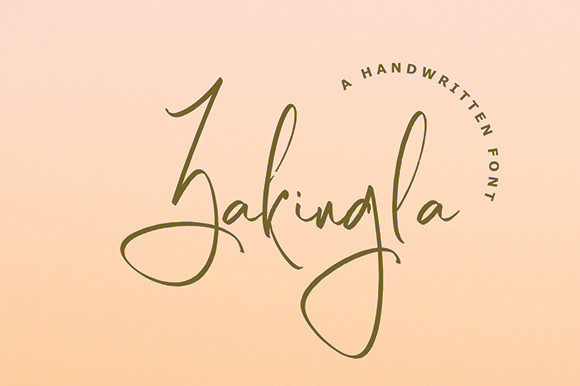
Introducing Zakingla Font: The Ultimate Romantic and Sweet Calligraphy Typeface
Are you looking for a font that can add a touch of luxury and romance to your design projects? Look no further than Zakingla Font! This beautiful calligraphy typeface is designed to make your designs stand out with its unique and elegant style. In this article, we’ll take a closer look at Zakingla Font and explore its features, benefits, and uses.
What is Zakingla Font?
Zakingla Font is a romantic and sweet calligraphy typeface that features characters that dance along the baseline. This unique design gives it a playful and elegant feel that’s perfect for a variety of design projects. The font is designed to add a luxury spark to any project, making it ideal for designers who want to create high-end designs.
Features of Zakingla Font
Zakingla Font has several features that make it a standout choice for designers. Some of its key features include:
- Romantic and Sweet Style: Zakingla Font has a romantic and sweet style that’s perfect for designs that require a touch of elegance and sophistication.
- Calligraphy Typeface: The font features a calligraphy typeface with characters that dance along the baseline, giving it a unique and playful feel.
- Luxury Spark: Zakingla Font is designed to add a luxury spark to any design project, making it ideal for high-end designs.
- Elegant and Playful: The font has an elegant and playful feel that’s perfect for a variety of design projects, from wedding invitations to luxury branding.
Benefits of Using Zakingla Font
There are several benefits to using Zakingla Font in your design projects. Some of the key benefits include:
- Unique and Elegant Style: Zakingla Font has a unique and elegant style that will make your designs stand out from the crowd.
- Versatile: The font is versatile and can be used in a variety of design projects, from wedding invitations to luxury branding.
- Easy to Read: Zakingla Font is easy to read, making it perfect for designs that require a clear and concise message.
- Customizable: The font is customizable, allowing you to adjust the size, color, and style to fit your design needs.
Uses of Zakingla Font
Zakingla Font can be used in a variety of design projects, including:
- Wedding Invitations: The font is perfect for wedding invitations, adding a touch of romance and elegance to your designs.
- Luxury Branding: Zakingla Font is ideal for luxury branding, adding a touch of sophistication and elegance to your brand.
- Stationery: The font can be used in stationery designs, such as letterheads, business cards, and envelopes.
- Advertising: Zakingla Font can be used in advertising designs, such as billboards, magazines, and online ads.
Tips and Tricks for Using Zakingla Font
Here are some tips and tricks for using Zakingla Font:
- Use it Sparingly: Use Zakingla Font sparingly to add a touch of elegance and sophistication to your designs.
- Pair it with Other Fonts: Pair Zakingla Font with other fonts to create a unique and interesting design.
- Adjust the Font Size: Adjust the font size to fit your design needs, using larger sizes for headings and smaller sizes for body text.
- Experiment with Colors: Experiment with different colors to find the perfect match for your design.
In conclusion, Zakingla Font is a romantic and sweet calligraphy typeface that’s perfect for designers who want to add a touch of luxury and elegance to their designs. With its unique and elegant style, versatility, and ease of use, Zakingla Font is a great choice for a variety of design projects. Whether you’re designing wedding invitations, luxury branding, or stationery, Zakingla Font is sure to make your designs stand out.
- What is Zakingla Font?: Zakingla Font is a romantic and sweet calligraphy typeface with characters that dance along the baseline.